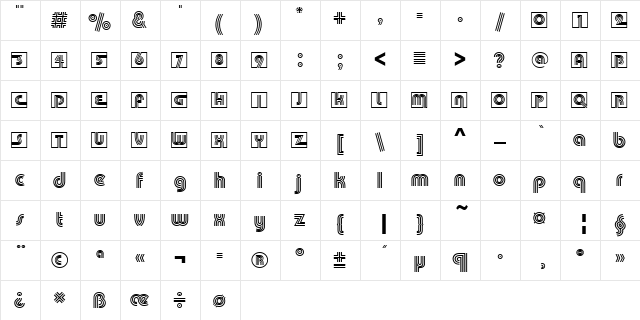
URWPuiseuxTriIniD Regular
Design Context for URWPuiseuxTriIniD Typeface
URWPuiseuxTriIniD is a composed and adaptable typeface that performs quietly and consistently across a wide range of design contexts.